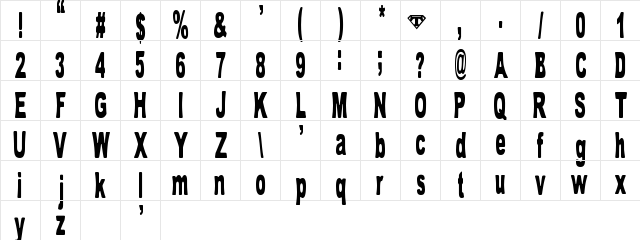
tom_bombadill Regular
Design Context for tom_bombadill Typeface
tom_bombadill is a composed and adaptable typeface that performs quietly and consistently across a wide range of design contexts.